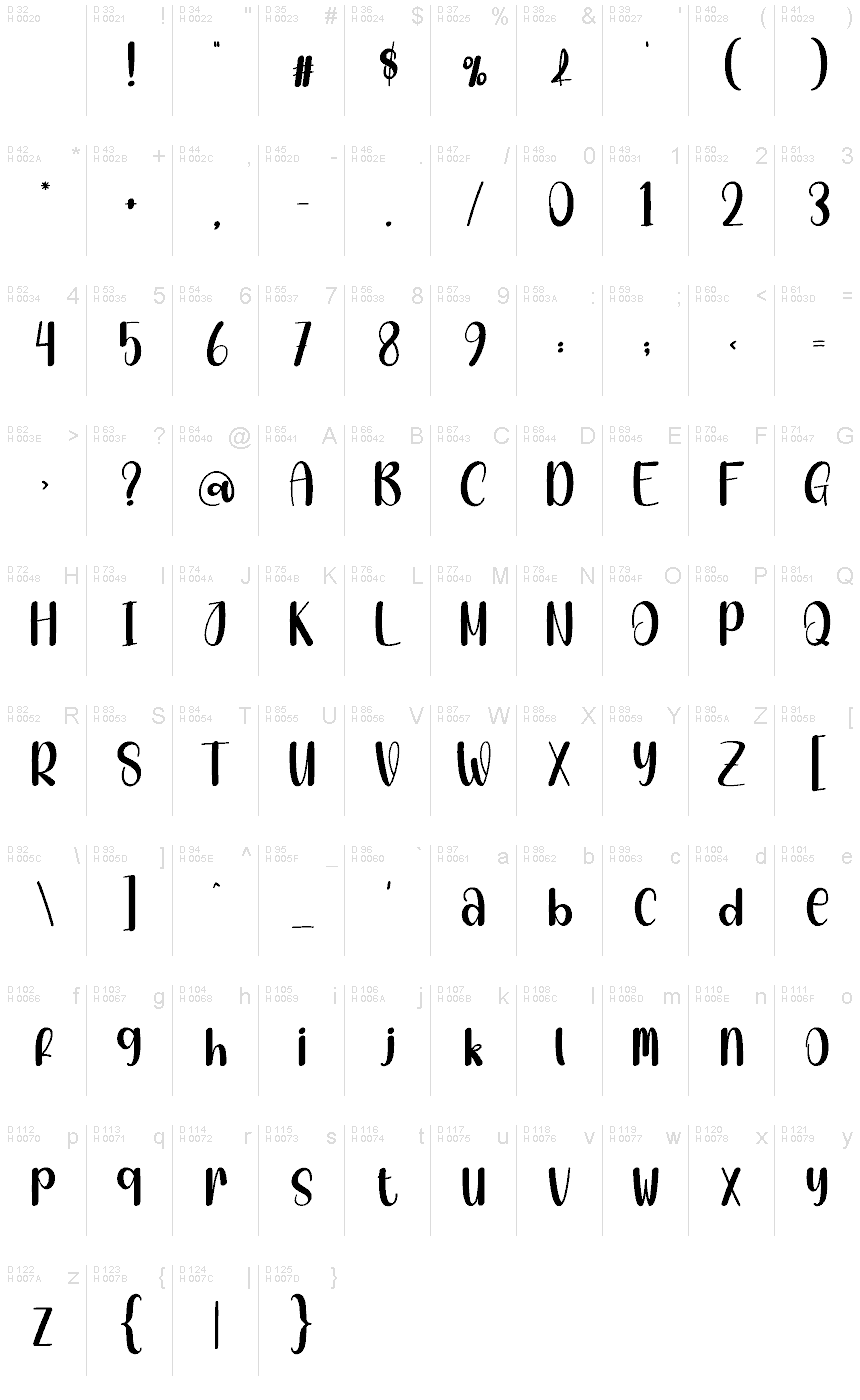
Spooky Magic
Spooky Magic font is a brush style font designed by Scratchones to surprise and amaze. Its retro feel, organic flow, and flamboyant letter designs give the type exceptionally whimsical visual aesthetics. This allows for decorative arrangements with a fantastical vibe perfect for dazzling audiences with uniquely presented texts.